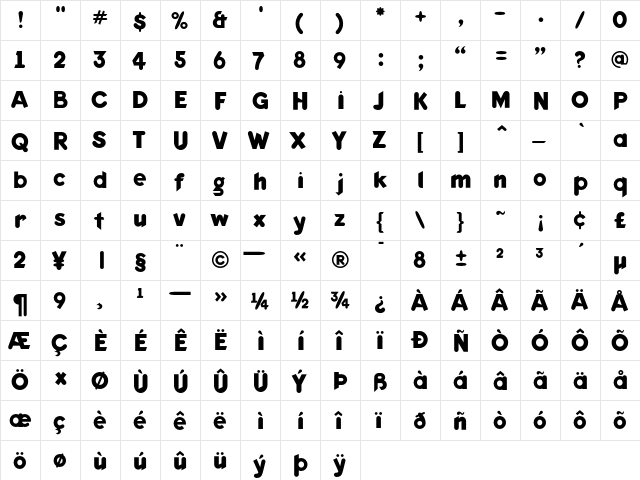
KeedySansBold Regular
Design Context for KeedySansBold Typeface
KeedySansBold takes a measured approach to typography — its balanced proportions and neutral character make it a reliable workhorse for both digital and print work. The heavy weight commands attention and anchors typographic hierarchies.